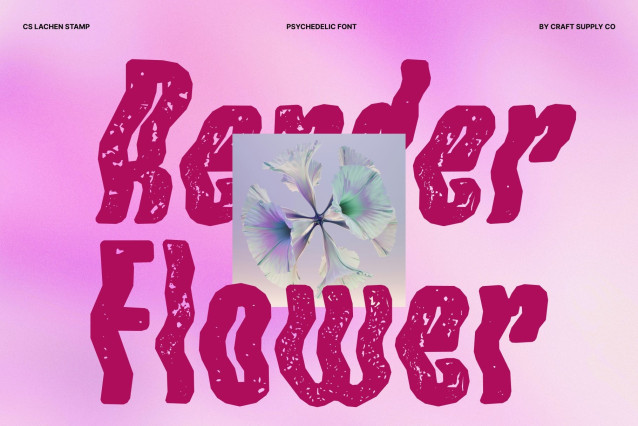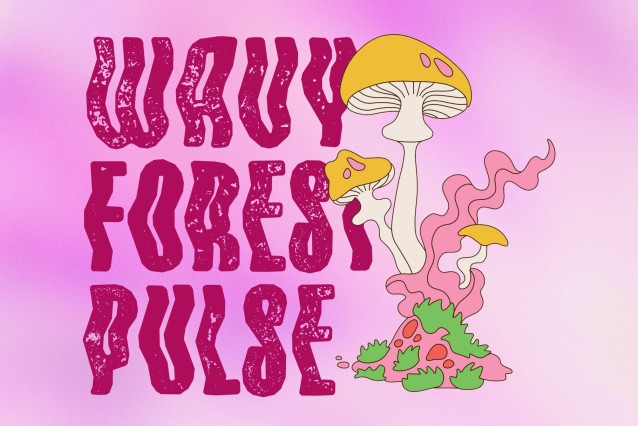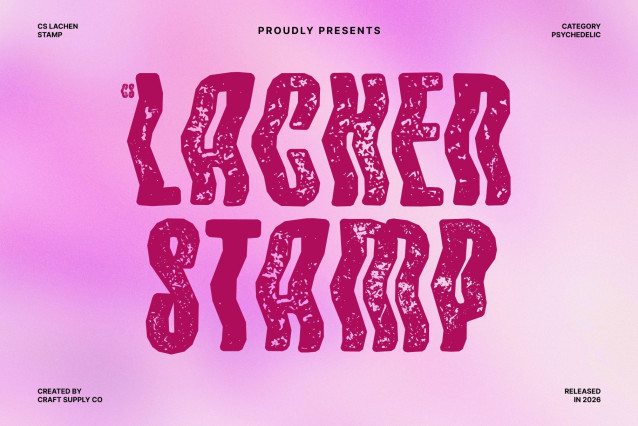
CS Lachen Stamp Font
CS Lachen Stamp – Psychedelic Font: Vibrant and Eccentric Artistic Flair
Psychedelic Display Font with Textured Stamp Effect
This is a psychedelic display font designed to captivate with bold, character-filled visuals. Its curvy, wavy, and distorted letterforms embody the essence of psychedelic art, while the stamp effect adds grainy texture, rough edges, and subtle ink imperfections. This combination creates a striking fusion of retro print aesthetics and vibrant artistic expression.
Unconventional Shapes with Vintage Ink Character
The playful distortions and unconventional shapes are enhanced by the stamped texture, giving the font a handcrafted, analog feel. The result is a lively and artistic typeface that feels both experimental and nostalgic, perfect for designs that celebrate creativity and individuality.
Energetic Style for Creative Visual Projects
The textured stamp finish amplifies the bold personality of this font, making it ideal for music posters, festival graphics, album artwork, packaging, and eye-catching promotional materials. Its vibrant spirit ensures your designs stand out with strong visual energy.